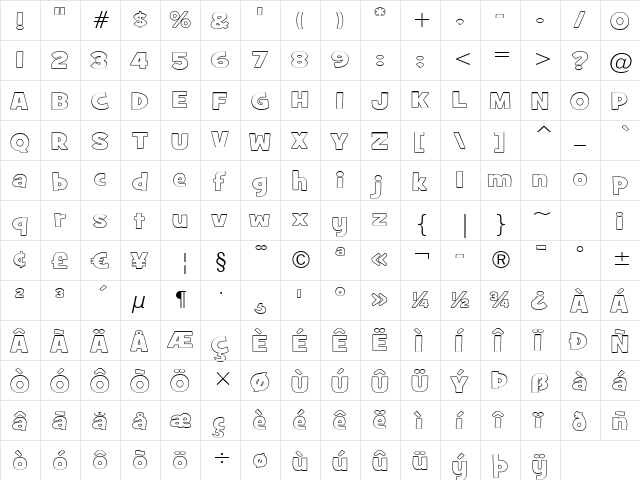
GrilledCheese BTN Out Wide Regular
Design Context for GrilledCheese BTN Out Wide Typeface
GrilledCheese BTN Out Wide is a composed and adaptable typeface that performs quietly and consistently across a wide range of design contexts.
Pro Tip: Pair GrilledCheese BTN Out Wide with a font of contrasting weight or personality to build a more expressive typographic hierarchy.